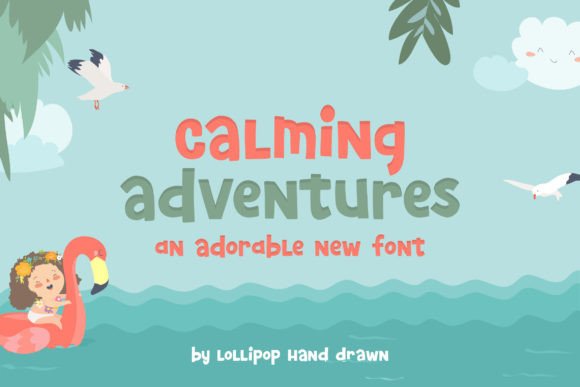
Are you on the hunt for the best font for block letters? Look no further than Calming Adventures Font, created by the talented Lollipop Hand Drawn. This display font is a must-have for anyone looking to elevate their design game.
Calming Adventures Font boasts bold and smooth curves that are both easy on the eyes and attention-grabbing. But what really sets it apart from other fonts is its unique and playful details, which bring character and personality to any project. Whether you're designing a website, creating a logo, or crafting a social media post, Calming Adventures Font is the perfect choice for making your content stand out.
But don't just take our word for it. Customers rave about the modern and attractive feel of this font. And with its easy-to-read typeface, you can be sure that your message will be conveyed clearly and effectively.